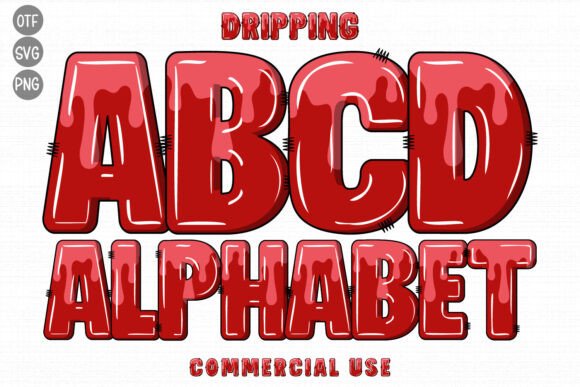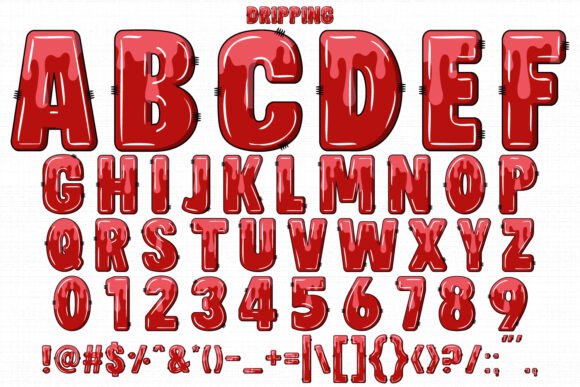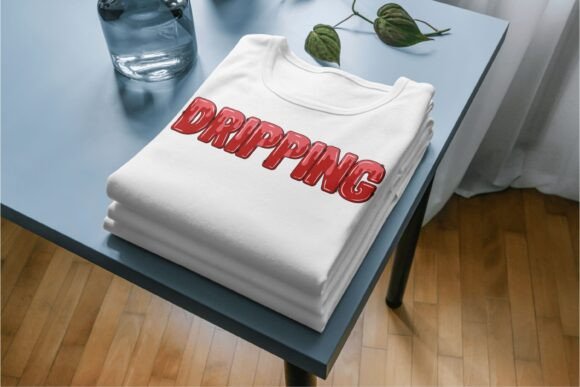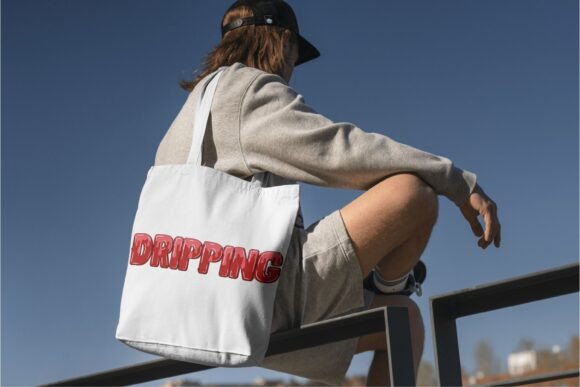
Dripping Font
About the Dripping Font
Step up your design game with Dripping Font, a font that exudes confidence and style. Dripping is a color font with a Dripping skin texture. This font is perfect for nature-themed designs and for children’s projects. No matter the topic, this font will be an incredible asset to your fonts’ library, as it has the potential to elevate any creatio
Dripping’s playful, slightly messy texture makes it ideal for children’s books, playful branding, and eye-catching posters. It works exceptionally well in headlines and short text segments where its unique character can shine. However, its less-than-optimal readability makes it unsuitable for body text or UI elements requiring extensive reading.
Consider pairing Dripping with a clean sans-serif like Open Sans for a balanced contrast, or a rounded geometric sans-serif for a more cohesive, modern feel. For a more whimsical approach, a script font with a similarly informal character could be effective. Avoid pairing it with highly formal or elegant typefaces.
The overall personality is undeniably fun and approachable, lending itself to projects that prioritize a childlike wonder or a slightly rebellious, unconventional aesthetic.